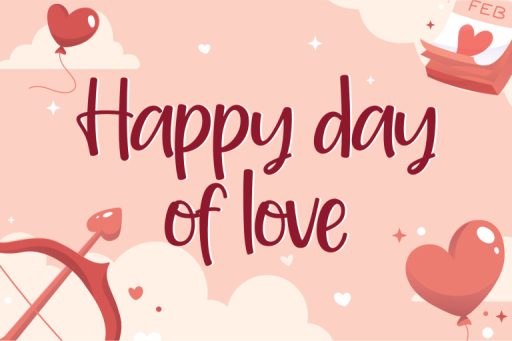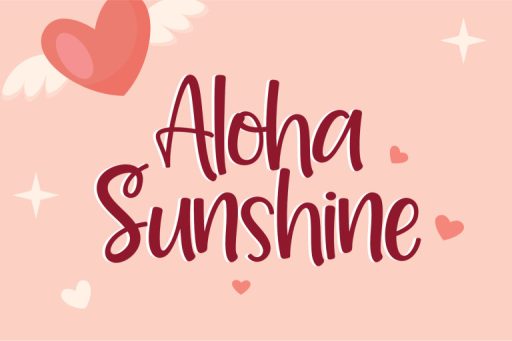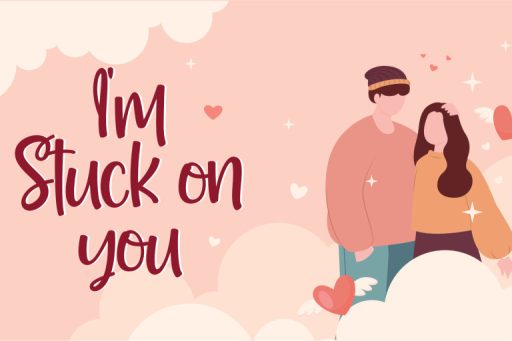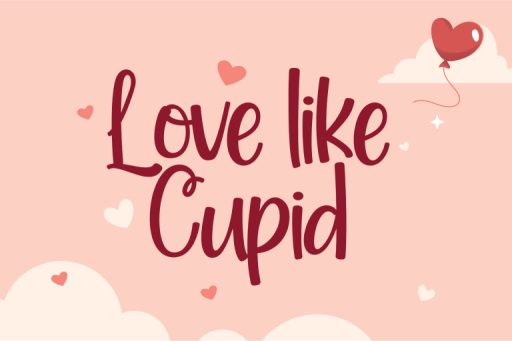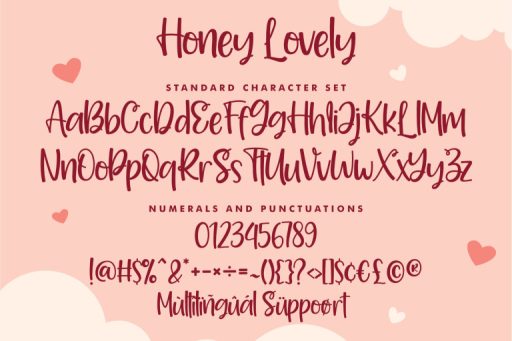
Honey Lovely Font - Playful Cute Font from Jimtype Studio
Honey Lovely Font
Honey Lovely – Playful Cute Font
Indulge in the sweet charm of Honey Lovely Font,  a love font that radiates cuteness and quirky affection. This delightful typeface is designed to infuse your design with a warm and playful touch.
Add a dash of sweetness and a pinch of playfulness to your creative design with Honey Lovely Font. Whether you’re designing greeting cards, creating love-themed graphics, or infusing charm into your branding, this font is your delightful companion on the journey of expressing love and joy through design. Choose Honey Lovely Font for an irresistibly adorable touch!